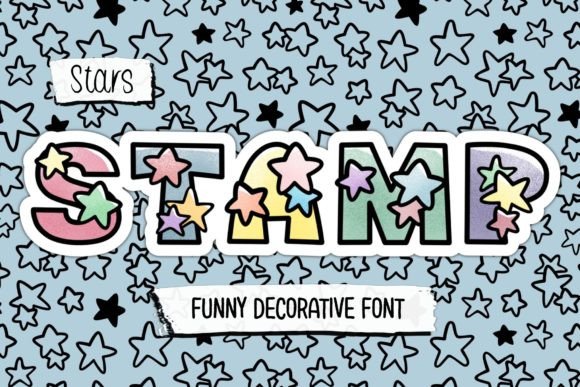
Journey into a Universe of Brilliance with Stars Stamp Font - Where Creativity Shines Like Stars Above.
In a world adorned with countless fonts, one name stands out amidst the sea of ordinary - Stars Stamp Font. A creation of 18CC FONTs, this Decorative font is more than just a collection of letters; it's a portal to a realm of boundless imagination and enchanting aesthetics.
With each stroke and curve meticulously crafted, Stars Stamp Font invites you to embark on a journey through the cosmos, where your designs will illuminate the digital sky like radiant stars. Its celestial charm and impeccable detailing make it the perfect font for evoking a sense of wonder and allure in your projects.
Whether you're a creative professional, a passionate designer, or simply someone who seeks a touch of magic in their digital endeavors, Stars Stamp Font is the muse you've been yearning for. Let it ignite your imagination and elevate your creations to new heights.
Immerse yourself in the Splendor of Stars Stamp Font:
* A font family designed to evoke the enchanting beauty of stars in the cosmos.
* Perfectly suited for logos, branding, social media, crafty DIY projects, and more.
* Each character meticulously crafted to embody elegance and celestial charm.
* Unleash your creativity and create designs that radiate with a starry brilliance.
* A font that transforms ordinary words into captivating constellations.
* Experience the magic of stars, right at your fingertips.
Make Stars Stamp Font Your Creative Ally:
* Instantly elevate the visual appeal of your logos and branding, leaving a lasting impression on your audience.
* Engage your followers on social media with captivating posts and designs that sparkle with cosmic energy.
* Add a touch of magic to your crafty DIY projects, turning them into cherished keepsakes.
* Let your imagination run wild as you explore infinite possibilities with Stars Stamp Font.
* Create designs that resonate with your audience, leaving them mesmerized by your artistry.
Stars Stamp Font - A Luminous Beacon in the Digital Galaxy:
* A font that speaks volumes without uttering a single word.
* Its beauty is undeniable, captivating hearts and minds alike.
* A font that breathes life into your designs, transforming them into masterpieces.
* Experience the enchantment of stars in font form.
* Stars Stamp Font - A stellar addition to your creative arsenal.
Unlock the Secrets of the Universe with Stars Stamp Font - Your Gateway to a World of Enchantment.